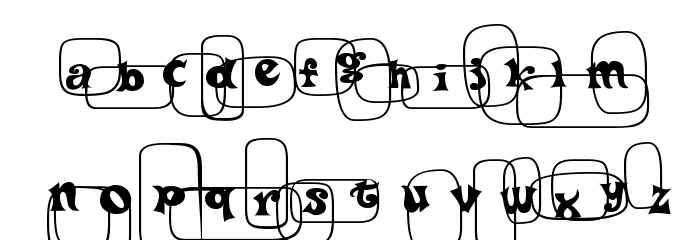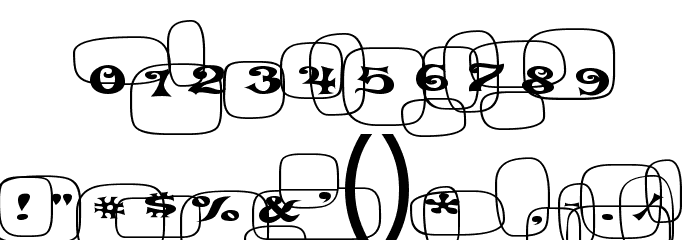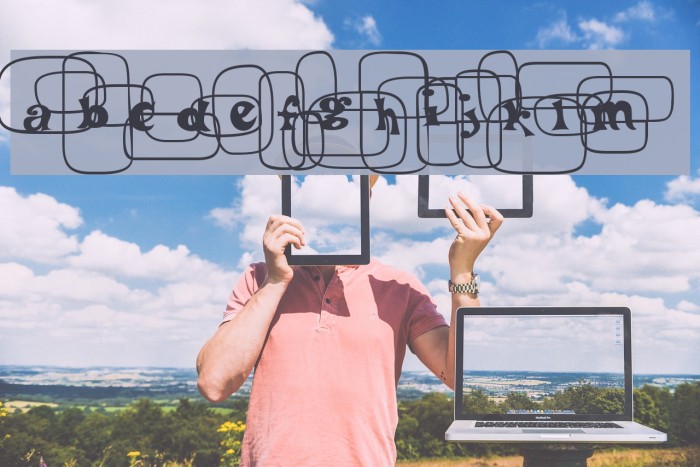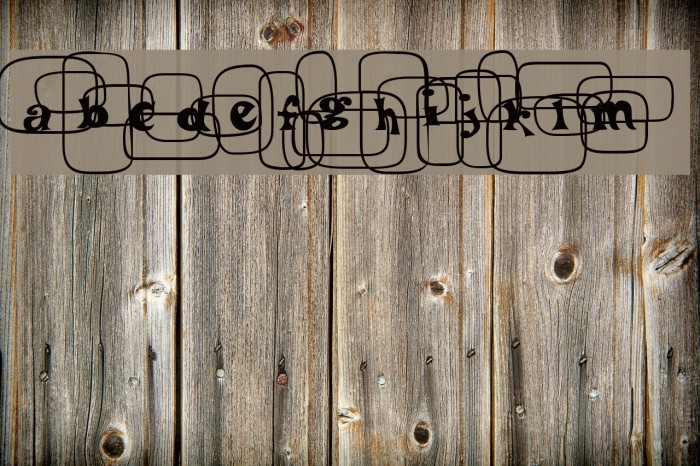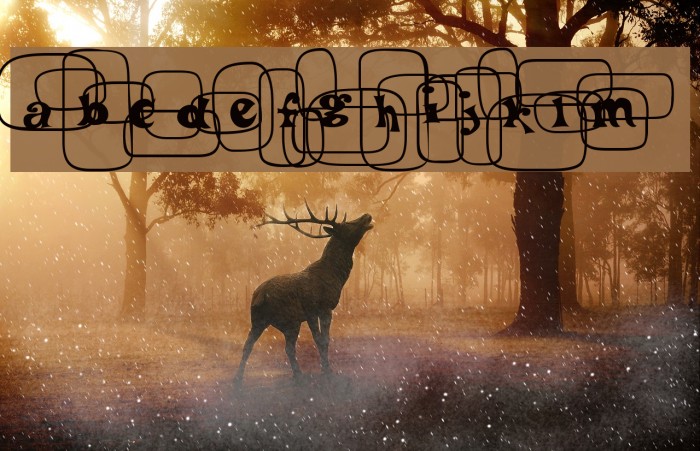
Po Beef Font
This font is a highly decorative and artistic typeface that features a unique blend of bold, swirling strokes and intricate detailing. Each character is encased in a rounded rectangular frame, adding a layer of complexity and visual interest. The font exhibits a playful yet sophisticated style, with exaggerated curves and flourishes that give it a whimsical appearance. The characters are bold and have a high contrast between thick and thin strokes, making them stand out prominently. The overall design is reminiscent of a modern calligraphic style, with a touch of vintage flair. This font is ideal for creative projects that require a distinctive and eye-catching typeface.
A decorative and artistic font with bold, swirling strokes and intricate detailing.
- Proposed Projects: Ideal for creative projects such as posters, invitations, branding, and artistic displays.
- Use Case: Logos, Headlines, Artistic displays